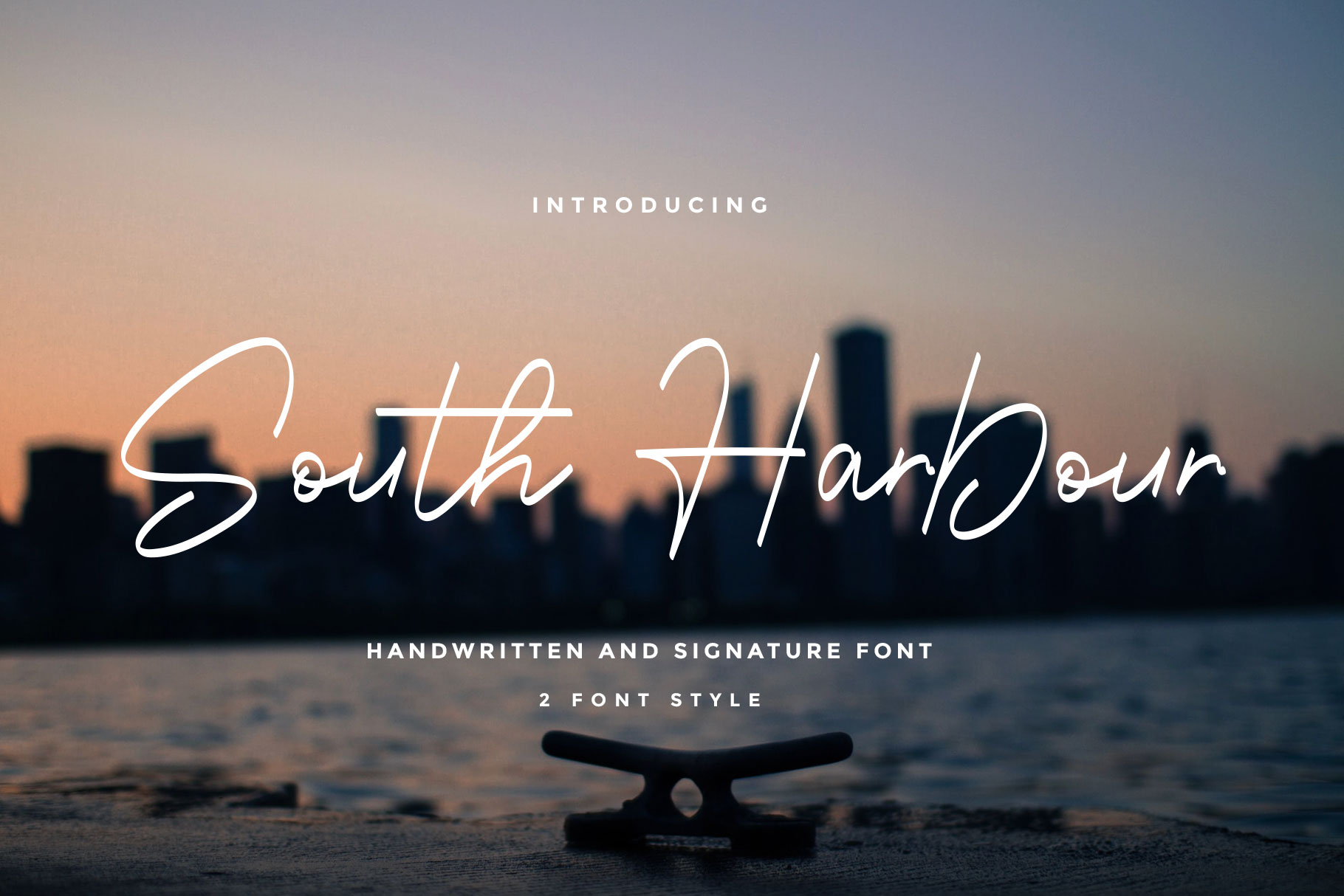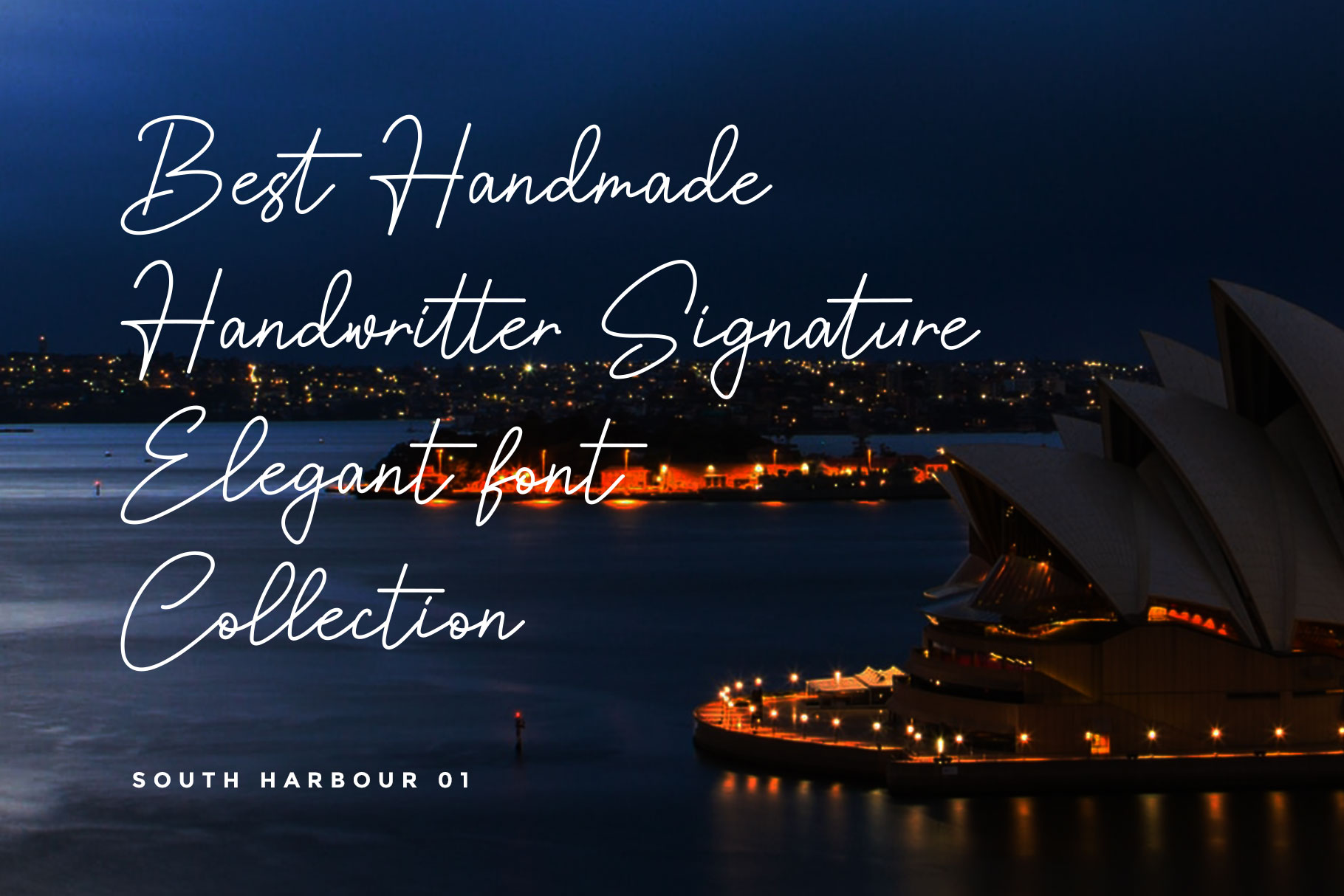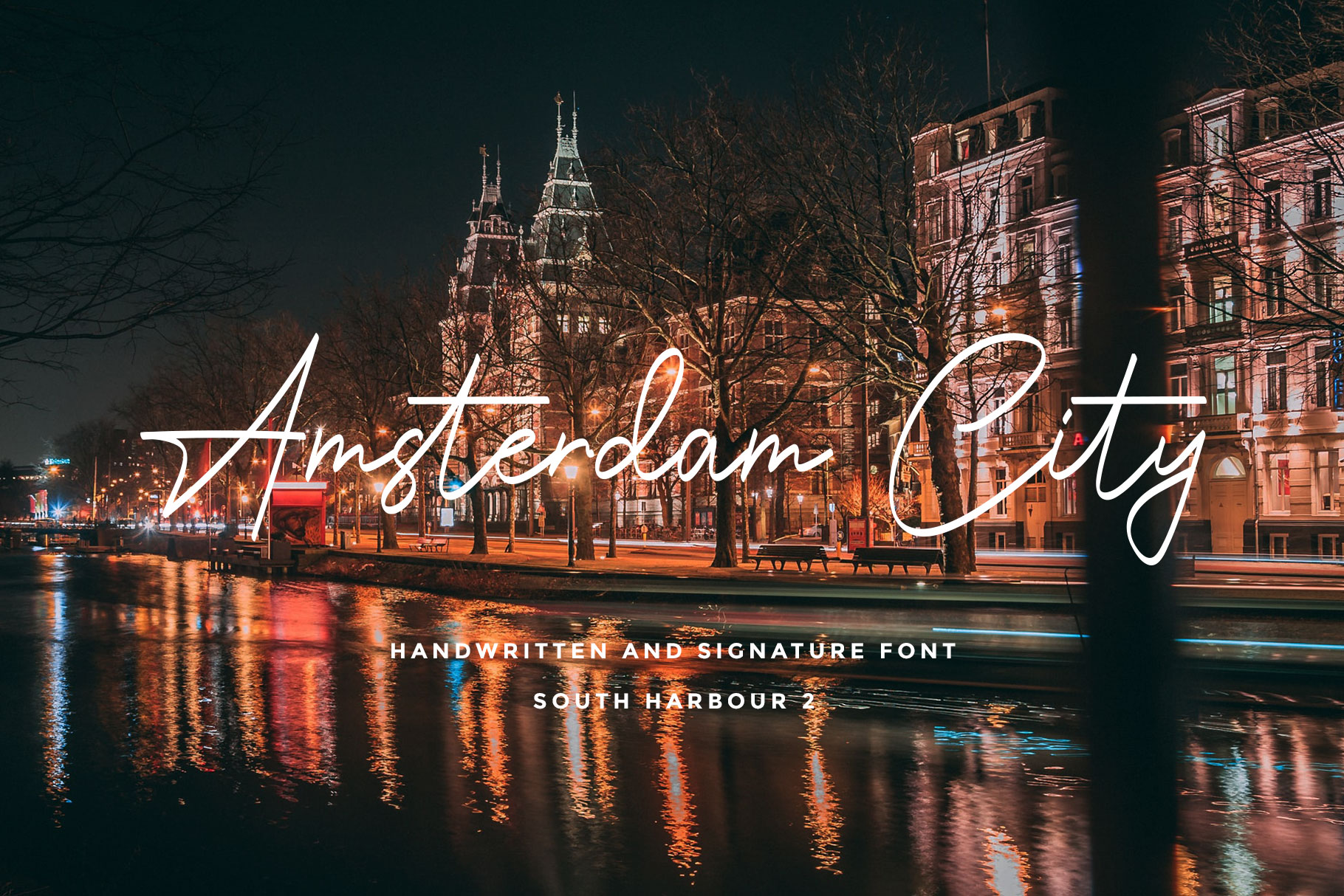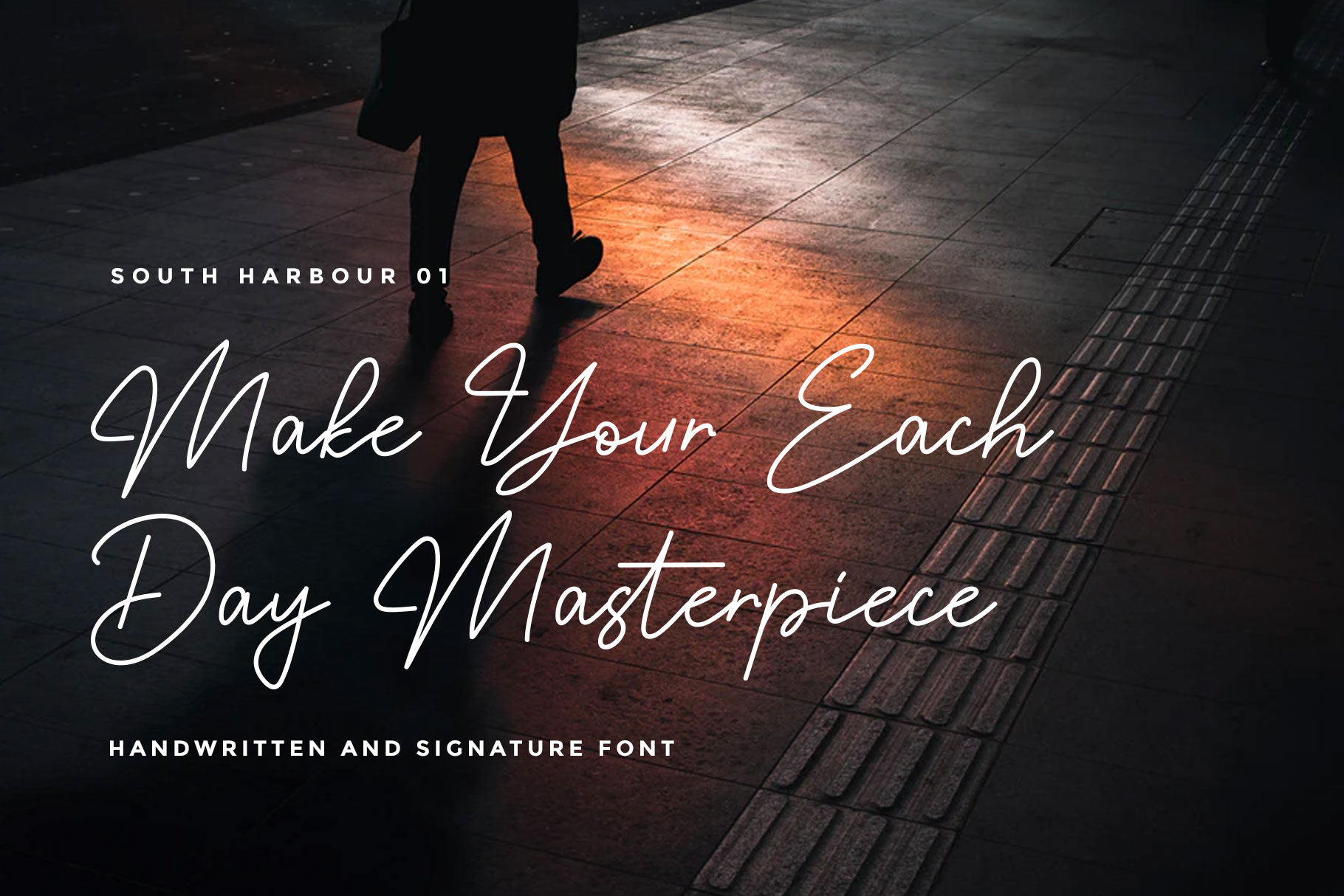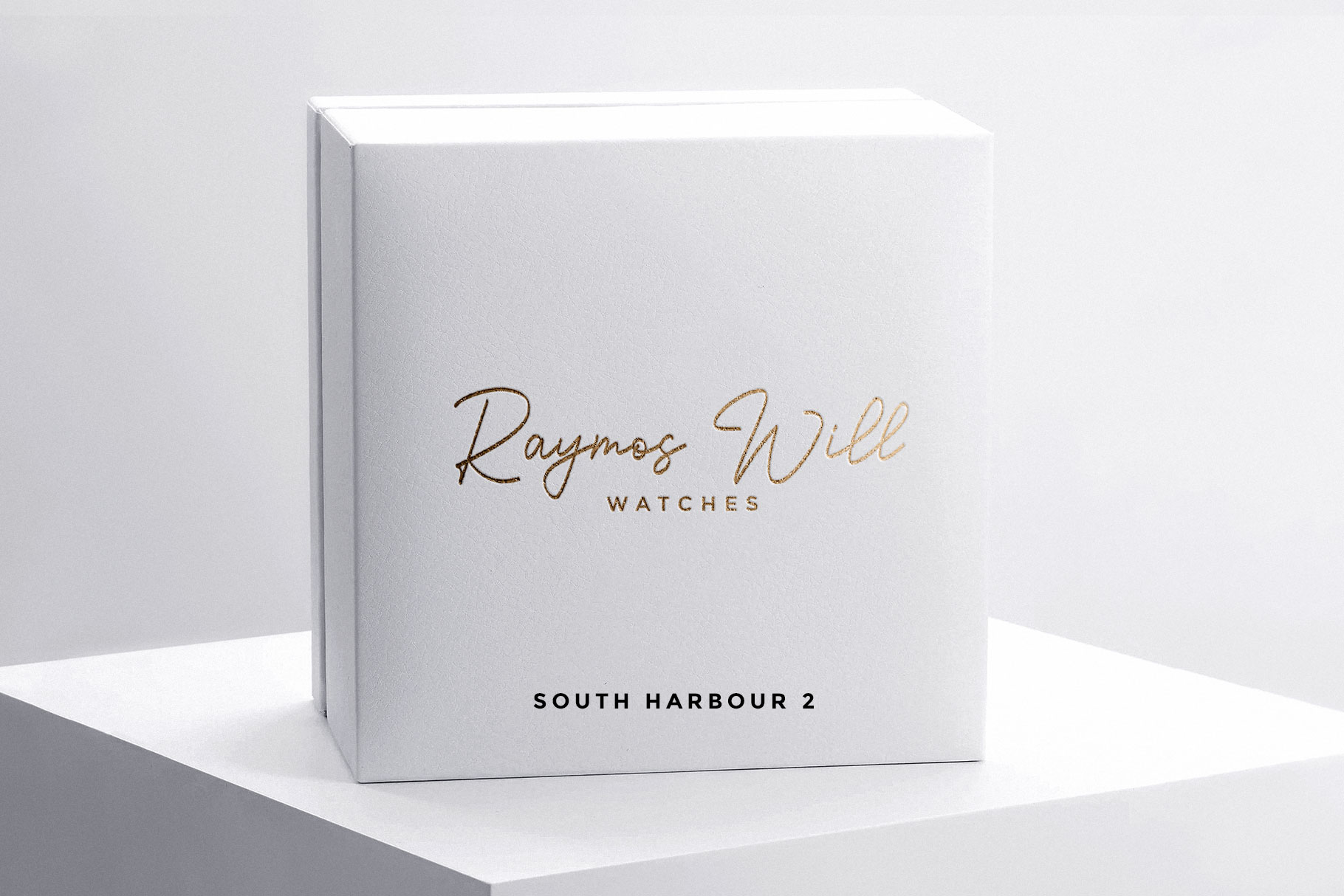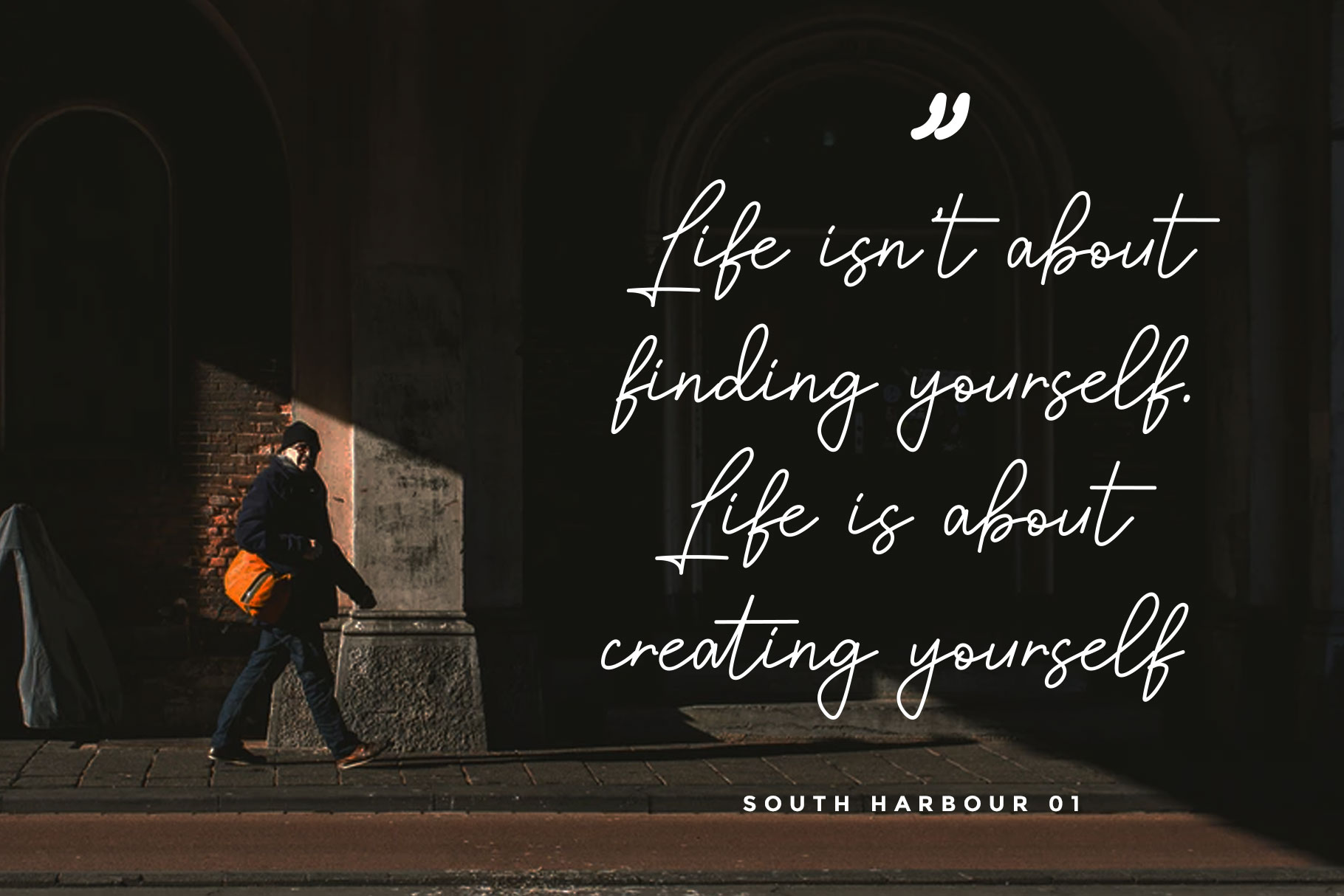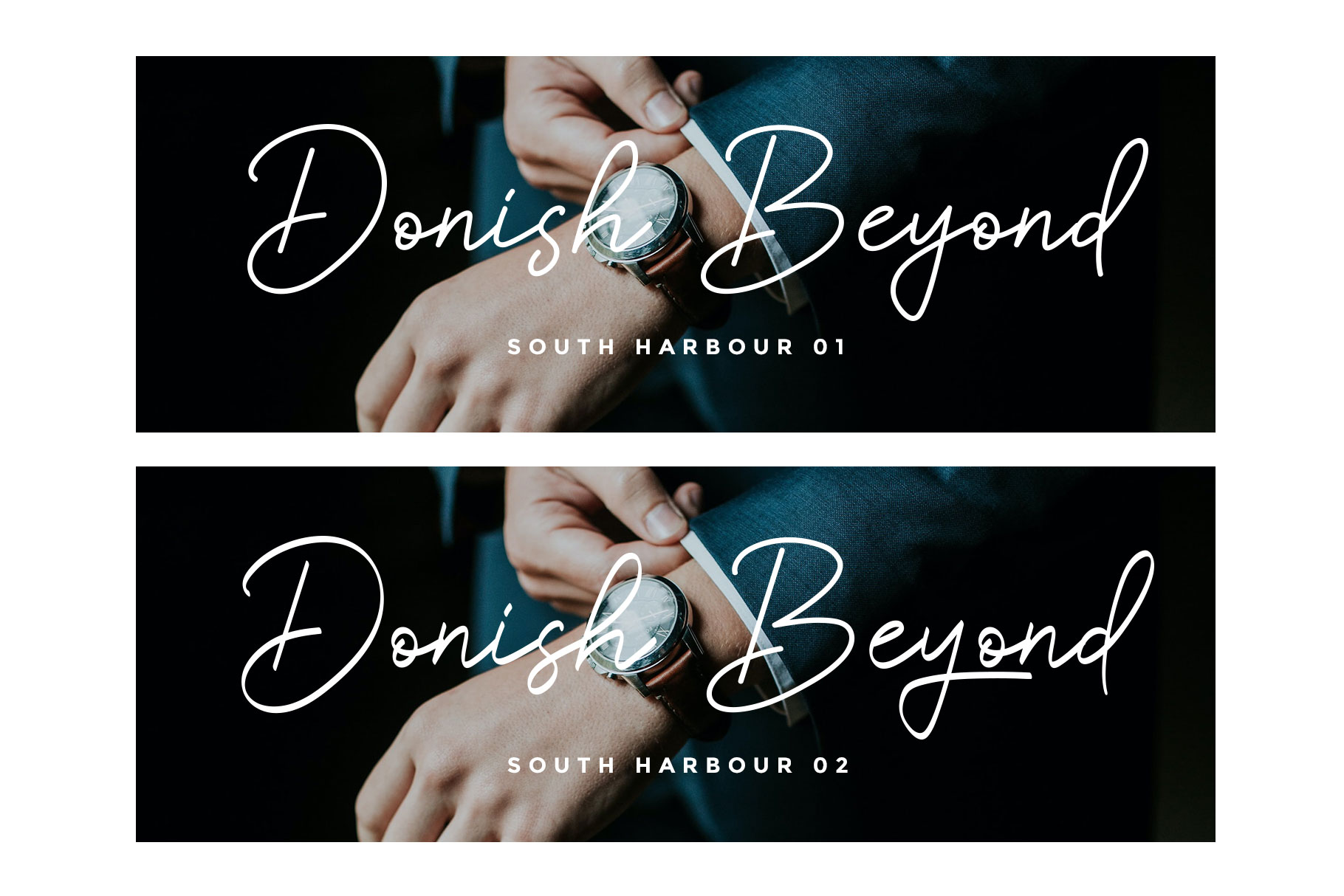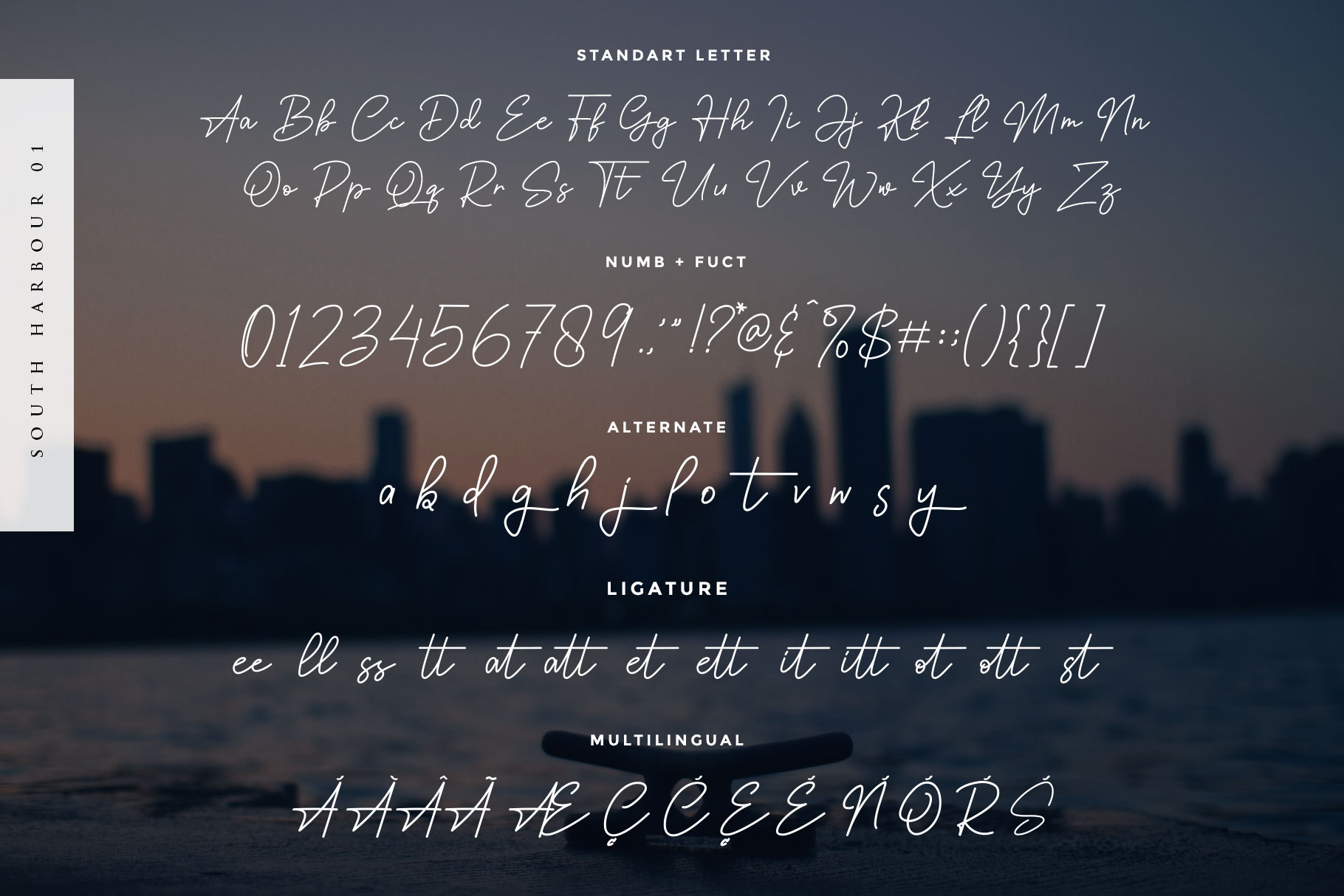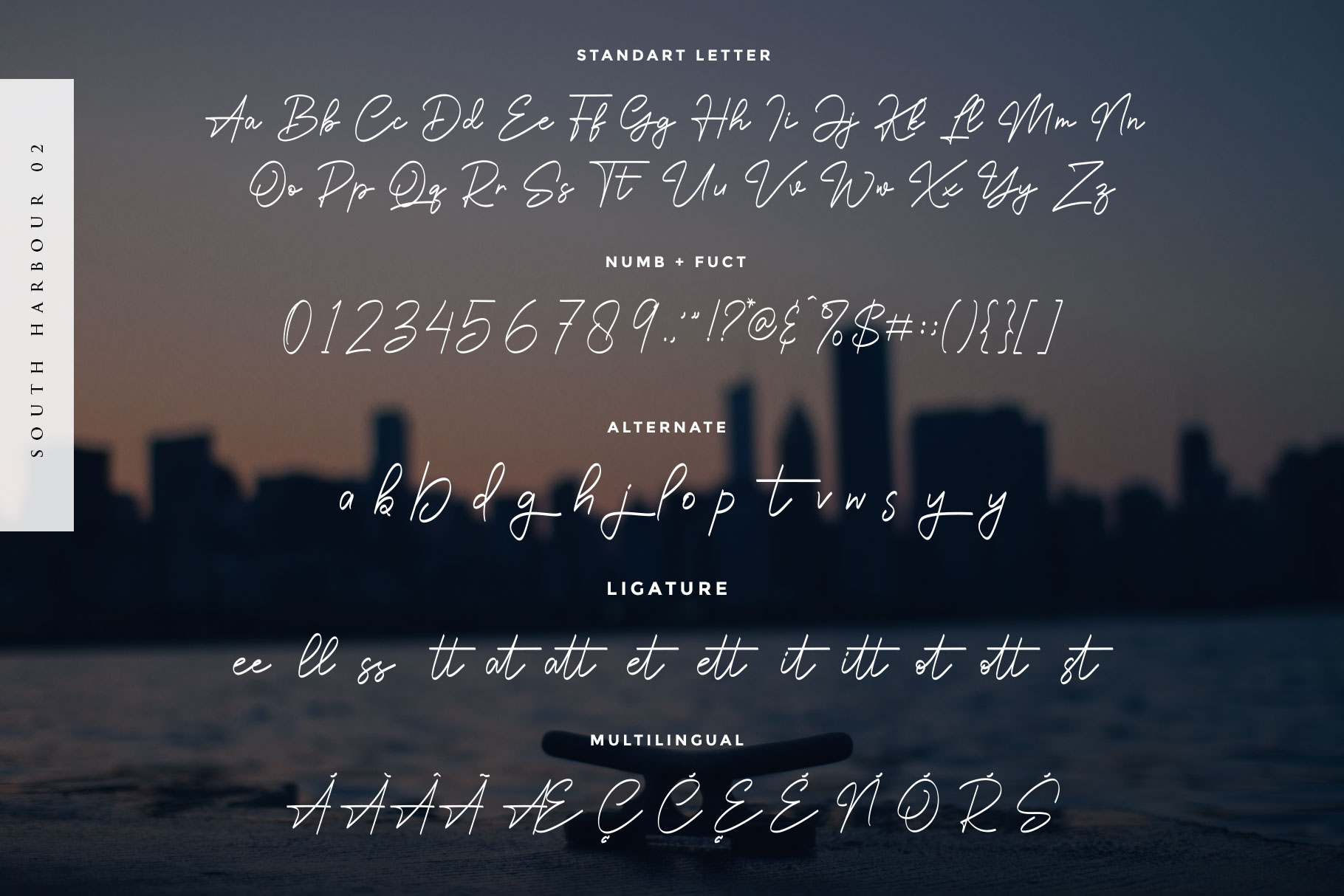
South Harbour Handwritten Font
South Harbour is include in 2 font style in rounded and signature style, which can be interpreted professional. I keep this font looks classy, readable, stylish, catchy and easy to use. South Harbour is the great choice for watermark on photography, signature or signature logo design, quotes, album cover, business card and many other design project. South Harbour is here to make your work to high level!!!